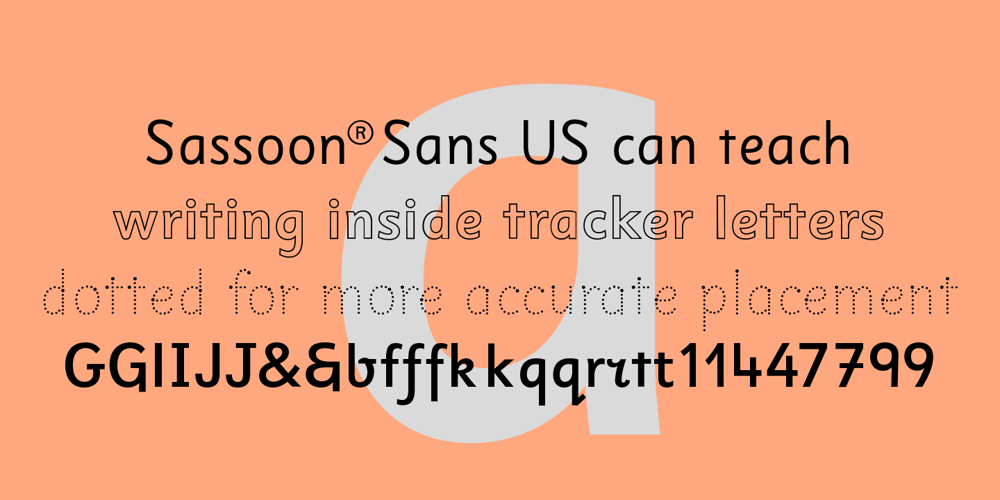
Sassoon Sans US Font Family was designed by Rosemary Sassoon and published by Sassoon-Williams. Sassoon Sans US contains 6 styles and family package options. North American version for teaching children’s first letterforms With dots and arrows these print script fonts have no ‘exit stroke’ found in the European version. An upright typeface family developed to meet the demand for letters to produce pupil material for handwriting as well as for reading. Upright letters with extended ascenders and descenders are ideal on screen. They facilitate word recognition. Teachers can print desk strips, charts of letter families and alphabet friezes, as well as consistent material across the curriculum. Together these typefaces provide a valuable resource for special needs teachers. Free to download resources How to access Stylistic Sets of alternative letters in these fonts